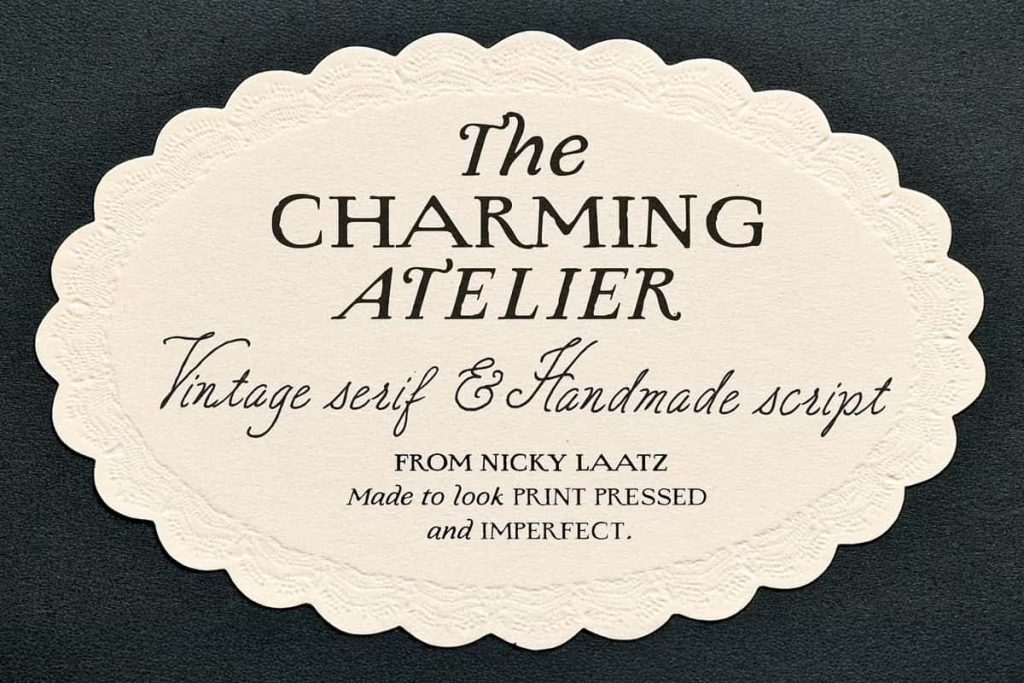
The Charming Atelier Font Duo
The Charming Atelier Font Duo brings together timeless elegance and handcrafted character in one thoughtfully designed type pairing. Designers who want to create a lasting impression can rely on this font duo to deliver both visual warmth and refined sophistication. Inspired by traditional printmaking and classic lettering techniques, this combination captures the beauty of imperfection while maintaining a polished and professional appearance.
A Perfect Blend of Vintage and Elegance
This font duo combines two distinct styles that work seamlessly together. The first is a vintage-inspired serif that reflects the authentic texture of old-world print press typography. Its slightly rough edges and subtle irregularities give your designs a tactile, organic feel. This is not a sterile digital typeface—it feels alive, expressive, and rooted in history.
The second font in the duo introduces a graceful hand-lettered script. It flows naturally across the page, adding movement and personality. The script feels confident yet approachable, making it ideal for projects that need both elegance and human touch. When paired with the serif, it creates a visual contrast that draws attention and enhances readability.
Designed for Creative Versatility
The Charming Atelier Font Duo adapts effortlessly to a wide range of design projects. Whether you are working on branding, editorial layouts, wedding invitations, packaging, or social media graphics, this font combination provides flexibility and consistency. The serif anchors your design with structure and clarity, while the script adds emotion and style.
Designers can use the serif font for headlines, body text, or logos to establish a strong visual foundation. Meanwhile, the script works beautifully for accents, signatures, taglines, or decorative elements. Together, they create a harmonious balance that elevates any composition.
Ideal for Branding and Identity
Strong branding requires fonts that communicate personality and purpose. The Charming Atelier Font Duo helps brands stand out by offering a distinctive visual identity. The vintage serif conveys trust, heritage, and reliability, while the script communicates creativity, warmth, and individuality. This combination makes it particularly effective for boutique brands, artisan products, lifestyle businesses, and creative entrepreneurs.
By using both fonts strategically, designers can build a cohesive brand system that feels both classic and contemporary. The result is a memorable identity that resonates with audiences and strengthens brand recognition.
Inspired by Traditional Craftsmanship
This font duo draws inspiration from traditional craftsmanship, including letterpress printing and hand lettering. These influences give the fonts their unique character and depth. The slightly imperfect edges of the serif mimic the natural inconsistencies found in vintage printing techniques, while the script reflects the fluid motion of hand-drawn lettering.
These details create an authentic aesthetic that digital-only fonts often lack. Designers who value artistry and storytelling will appreciate how this duo captures the spirit of handmade design while remaining highly functional in modern applications.
Enhance Your Creative Projects
The Charming Atelier Font Duo empowers designers to create visually compelling work with ease. It encourages experimentation and creativity while maintaining a cohesive look. Whether you want to design something romantic, nostalgic, or refined, this font pairing provides the tools you need to achieve your vision.
With its balance of structure and expression, this duo transforms ordinary designs into captivating visual experiences. It allows you to communicate your message clearly while adding personality and depth. If you are looking for a font combination that delivers both beauty and versatility, the Charming Atelier Font Duo stands as a reliable and inspiring choice.